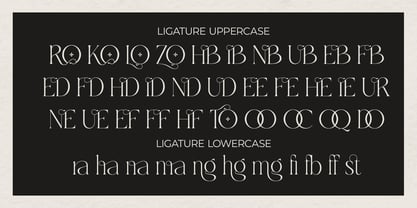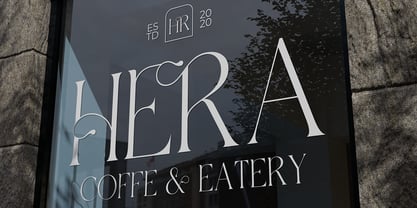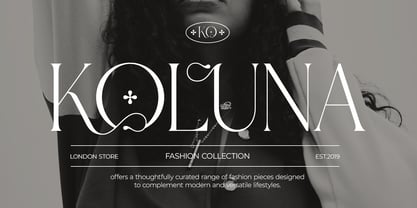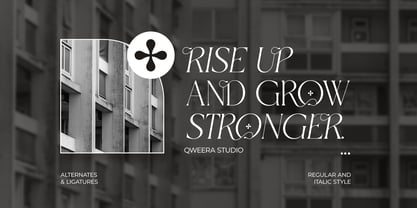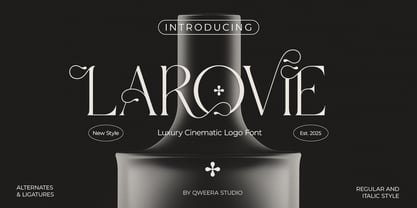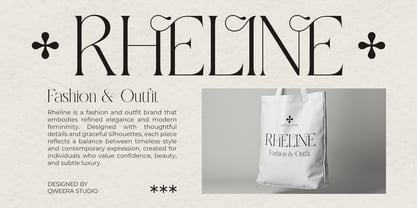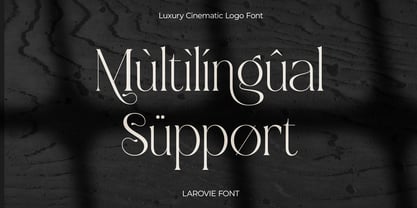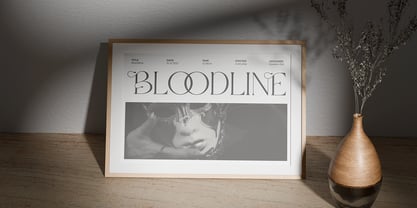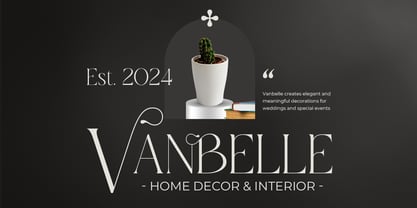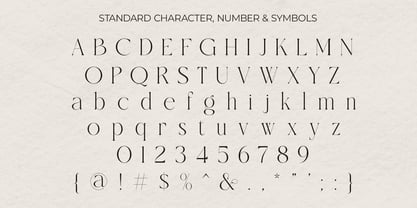
Larovie
by Qweera Studio
The Larovie Font Family was designed by Idhham Cholid Rikzano Yahya and published by Qweera Studio. Larovie contains 2 styles and family package options. More about this family
Larovie is a modern luxury display serif typeface built with refined contrast and decorative sophistication. The design balances timeless serif tradition with cinematic drama, making it ideal for upscale visual communication. With alternates, ligatures, multilingual support, and italic style, Larovie is suited for branding, editorial, packaging, and fashion applications. Perfect for professionals who demand elegance and impact. Features Alternates Ligatures Multilingual support Decorative flourishes Professional kerning Regular & Italic Specifications Language Support: Western, Central Europe Features: Alternates, Ligatures, Italic Recommended For Luxury branding, cinematic titles, fashion identity, editorial design, packaging systems, premium logos
Designers: Idhham Cholid Rikzano Yahya
Foundry: Qweera Studio